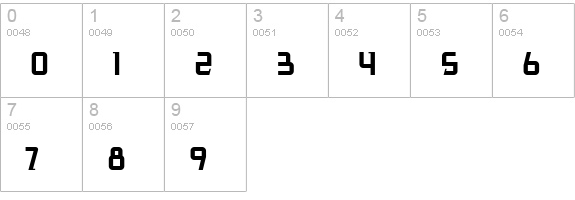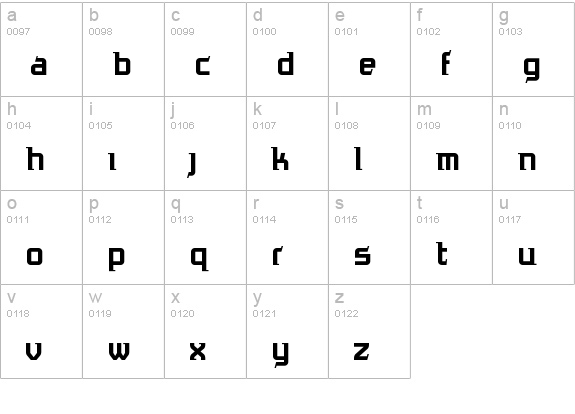
Antigrav BB Font Details
Antigrav BB font is a sleek and modern typeface that exudes a futuristic vibe. Its clean lines and geometric shapes make it perfect for projects that require a contemporary touch. The font's unique design gives off an anti-gravity feel, making it stand out from the crowd. What sets Antigrav BB font apart is that it is not only visually striking but also versatile in its application. Whether used for branding, advertising, or creative projects, this font is sure to make a statement. Its bold and dynamic appearance makes it ideal for headlines, titles, and other prominent text elements. Best of all, Antigrav BB font is available for free download at FontsMarket.com. This means that you can easily access this cutting-edge font without any cost, making it a valuable addition to your design toolkit. Don't miss out on the opportunity to enhance your projects with the striking and modern style of Antigrav BB font.